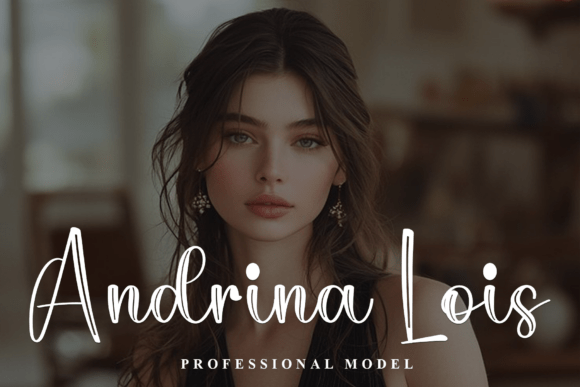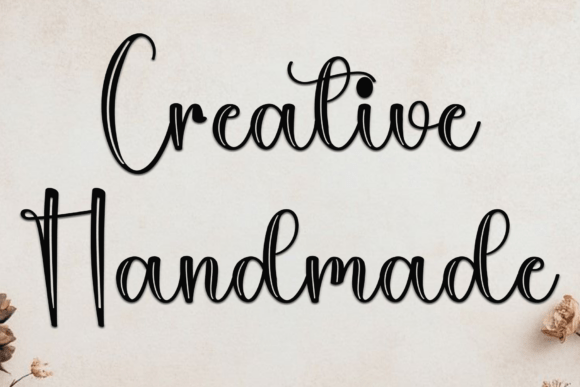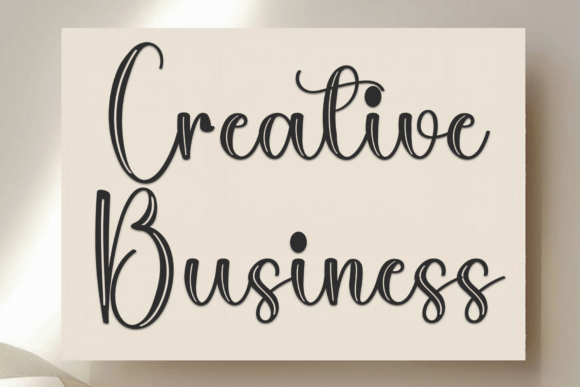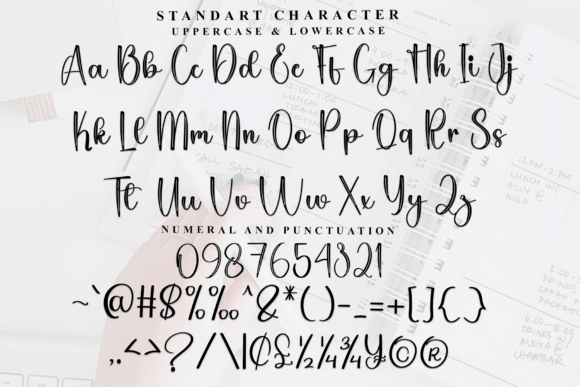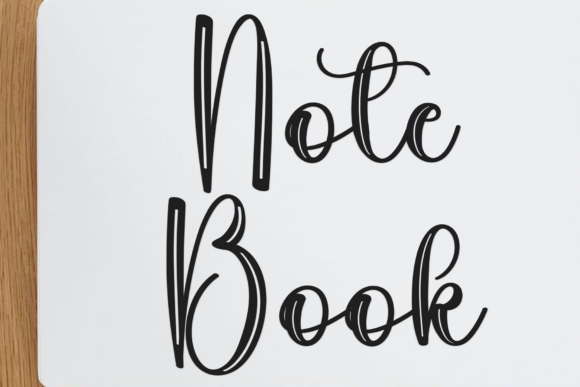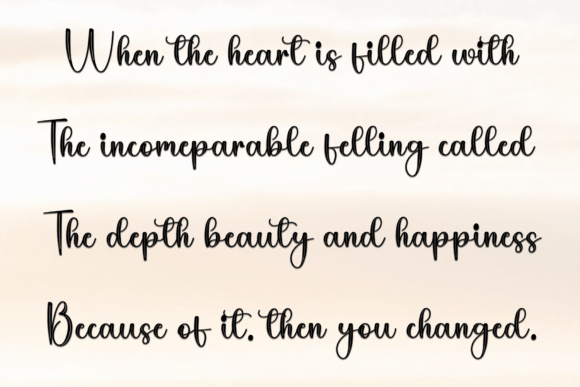
Embracing the Beauty of Autumn: A Timeless Font for Designers
As the leaves change colors and the crisp air sets in, there’s something about autumn that sparks creativity in all of us. Perhaps it’s the cozy atmosphere, the vibrant hues, or the feeling of new beginnings. Whatever it is, autumn has a way of inspiring us to be more artistic and expressive. And what better way to capture the essence of this season than with a beautiful, handmade font?
Meet the Autumn Handmade Font, a stunning typographic creation that embodies the warmth and character of autumn. This font is designed to add a personal touch to your designs, making them stand out in a crowded creative landscape. With its soft, unique strokes and versatility, the Autumn Handmade Font is a valuable tool for designers looking to elevate their work and connect with their audience on a deeper level.
- Unique Characteristics: Handmade, vintage, and distressed design elements, with subtle texture and imperfections
- Font Style: Script, Casual, and Handwritten
Autumn Handmade Font Review
As a designer, I’ve had the pleasure of working with various fonts, but the Autumn Handmade Font caught my attention. Here’s my honest review.
- Unique Character: The Autumn Handmade Font has a distinct character that stands out from other fonts. Its handmade feel gives it a warm, cozy touch.
- Legibility: Despite its uniqueness, the font is surprisingly legible, making it suitable for a wide range of applications.
- Customization: The font comes with a range of customization options, allowing designers to tweak it to their liking.
- Limited Font Sizes: The font seems to struggle at larger font sizes, losing its handmade charm and becoming less legible.
- Overuse: The font’s unique character can become overwhelming if used excessively, so it’s essential to use it sparingly.
The Autumn Handmade Font is a beautiful addition to any designer’s toolkit. While it has some limitations, its unique character and customization options make it a valuable asset for projects that require a warm, handmade touch.
The Autumn Handmade Font is perfect for creating warm and inviting designs, such as:
- Home decor and furniture labels.
- Seasonal greeting cards and gift tags.
Remember to pair the Autumn Handmade Font with warm and earthy colors to create a cohesive and inviting design.
Q: Can I customize the Autumn Handmade Font to fit my design needs?
The Autumn Handmade Font is a static font, and it’s not designed for customization. However, you can experiment with font pairing and styling to create unique visual effects.
Q: What is the recommended font size for optimal readability with the Autumn Handmade Font?
For optimal readability, we recommend using font sizes between 14pt and 24pt. However, this may vary depending on your design’s specific requirements and the intended audience.